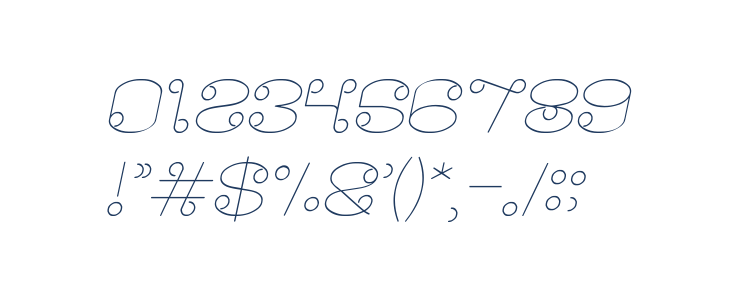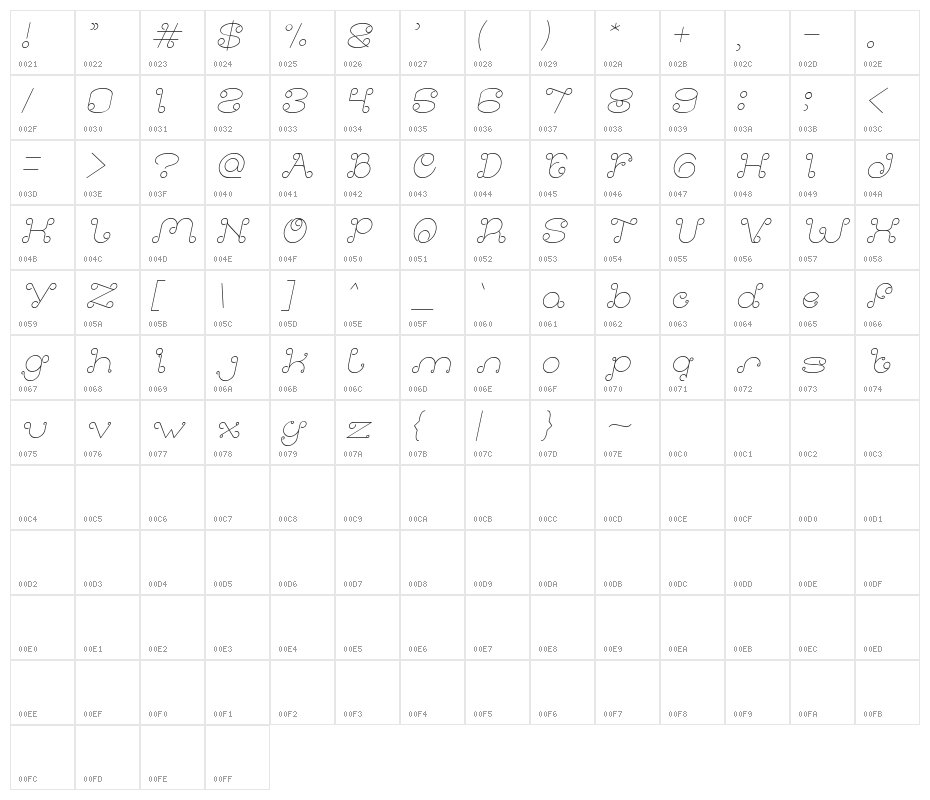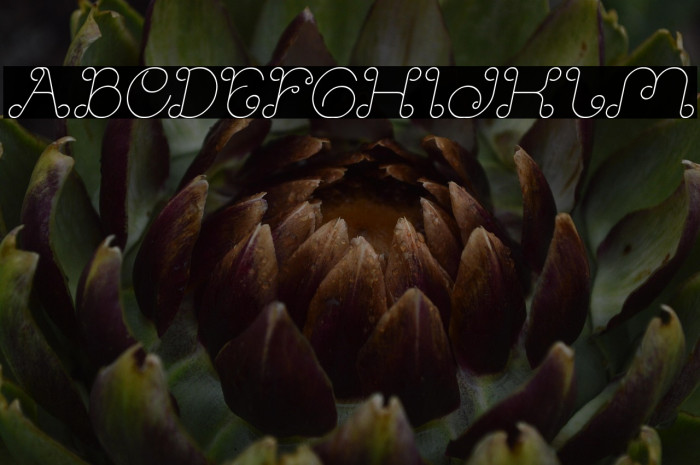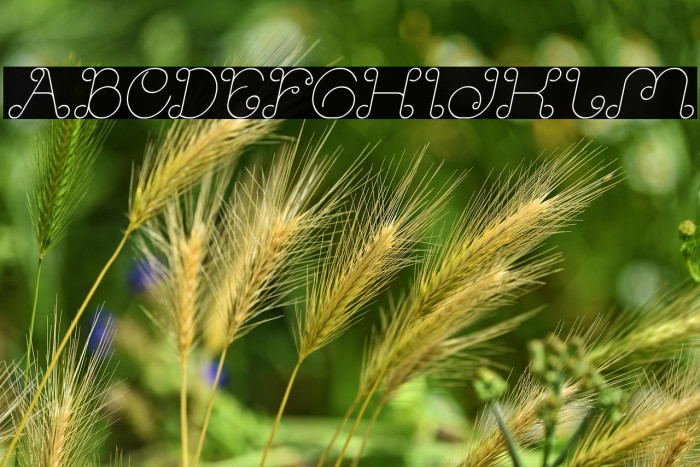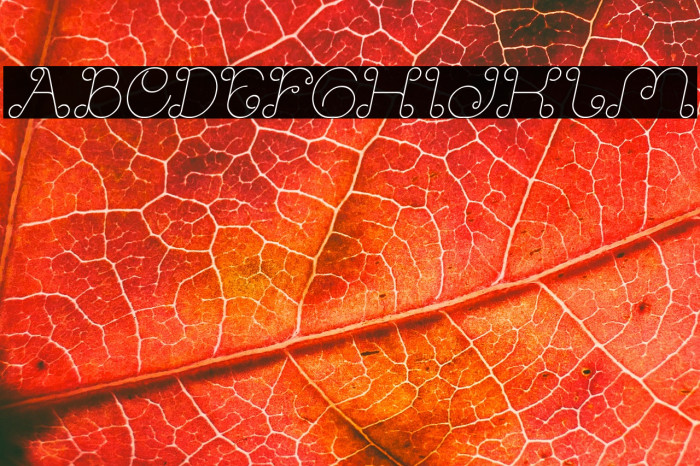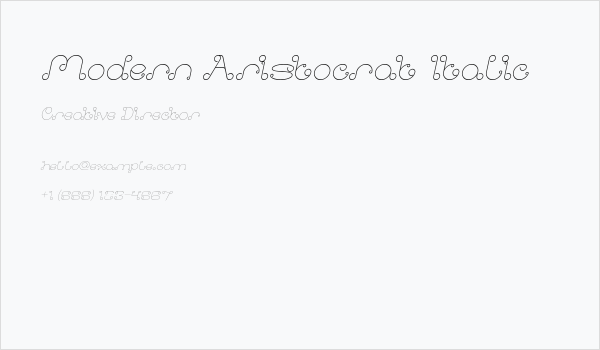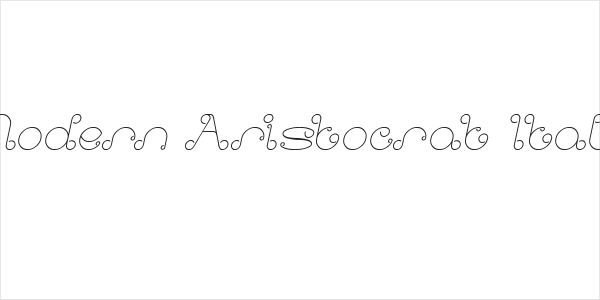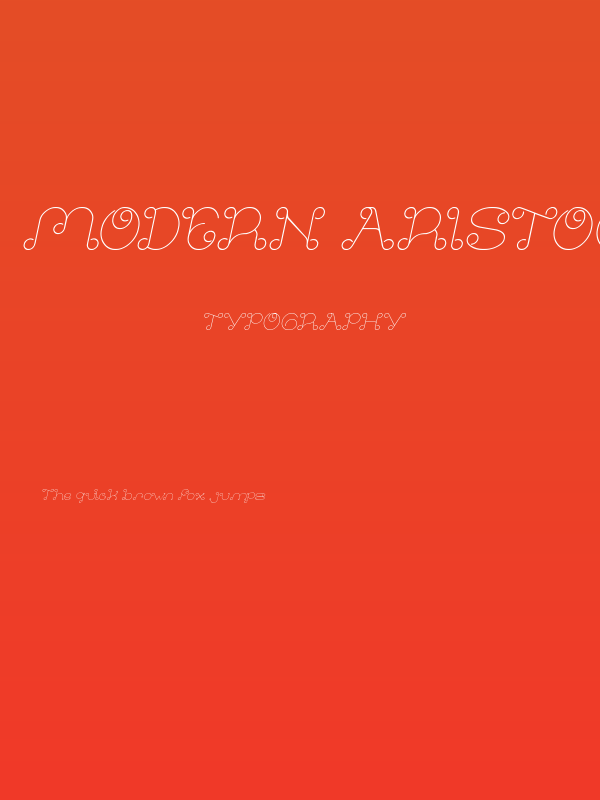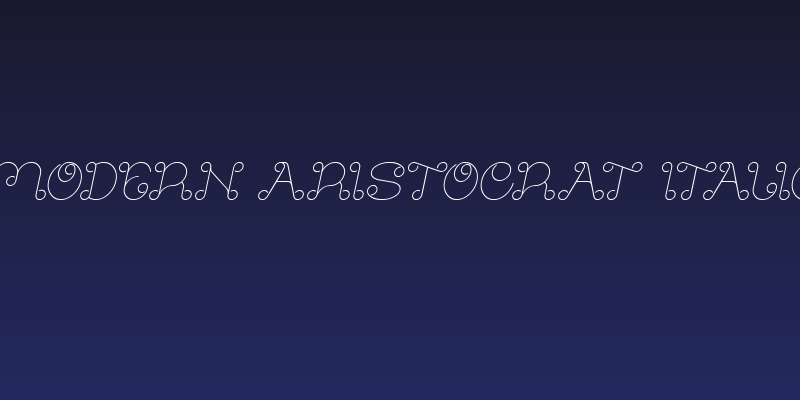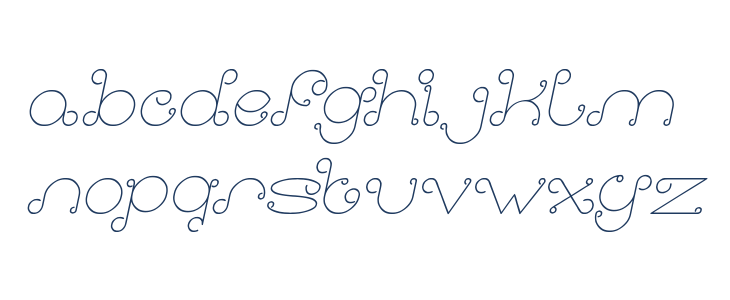
Modern Aristocrat Italic Font
Modern Aristocrat Italic Description
This font features a unique and elegant design with a modern twist. Each character is crafted with a delicate, flowing line that loops gracefully, creating a sense of movement and sophistication. The uppercase and lowercase letters maintain a consistent style, with rounded edges and a playful yet refined appearance. The numerals and special characters follow the same aesthetic, ensuring a cohesive look across all text. This font's intricate design makes it stand out, offering a blend of modernity and classic elegance that is both eye-catching and versatile.
| Proposed Projects | Ideal for wedding invitations, luxury branding, elegant packaging, and artistic posters. |